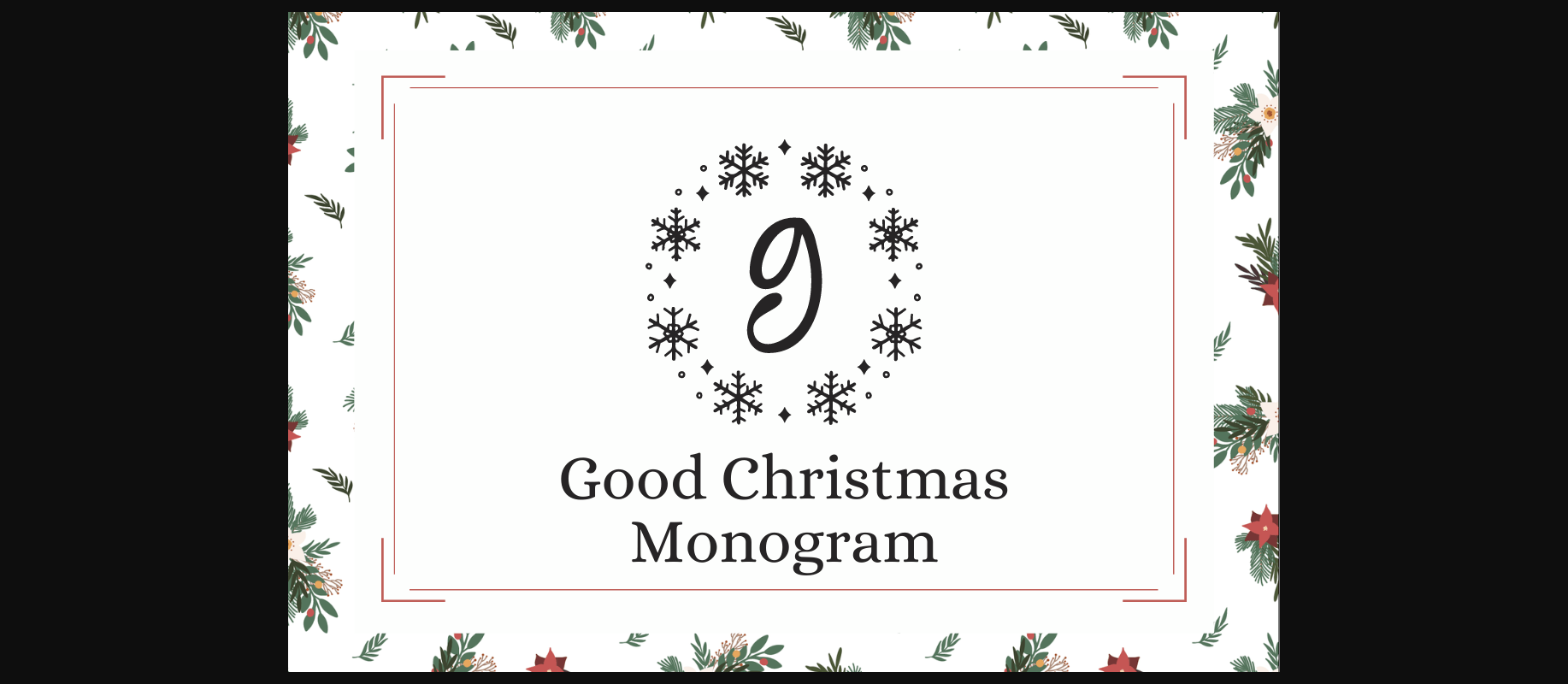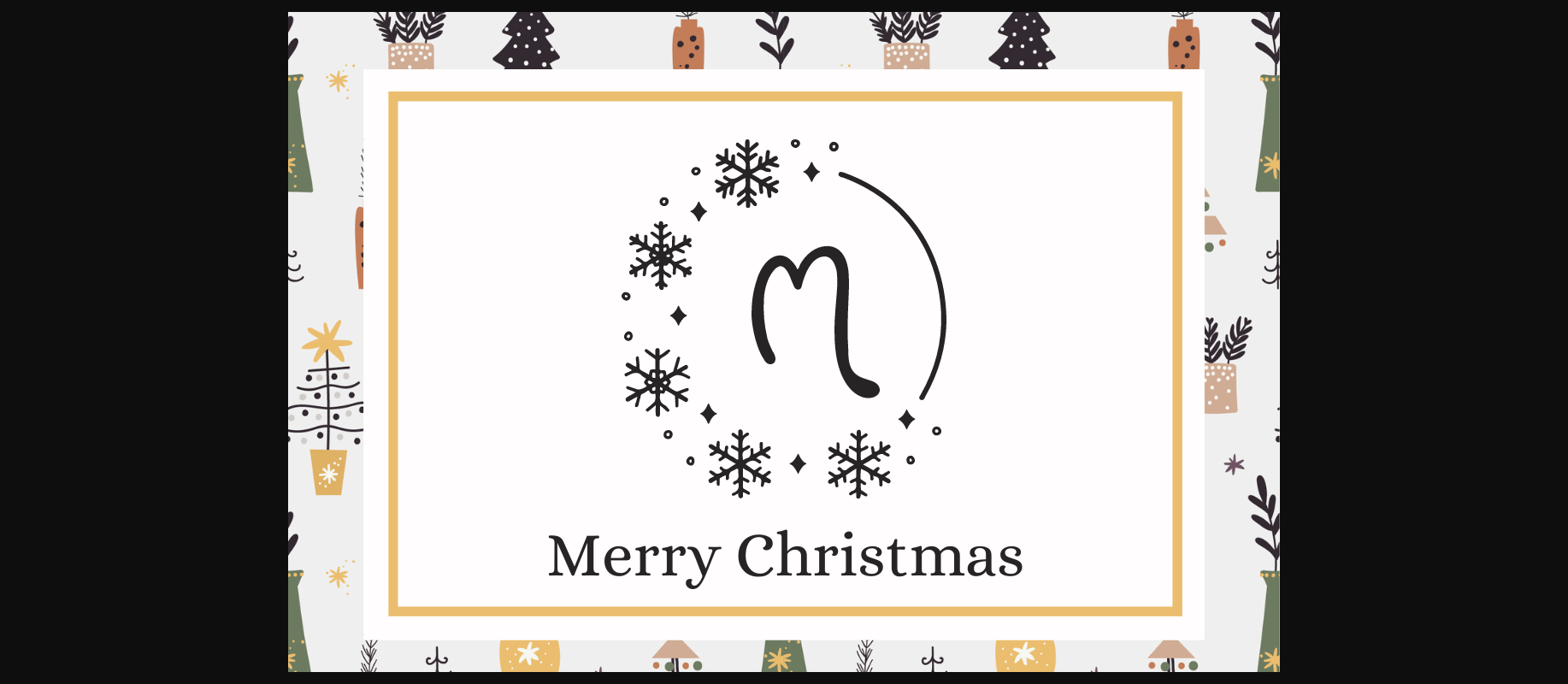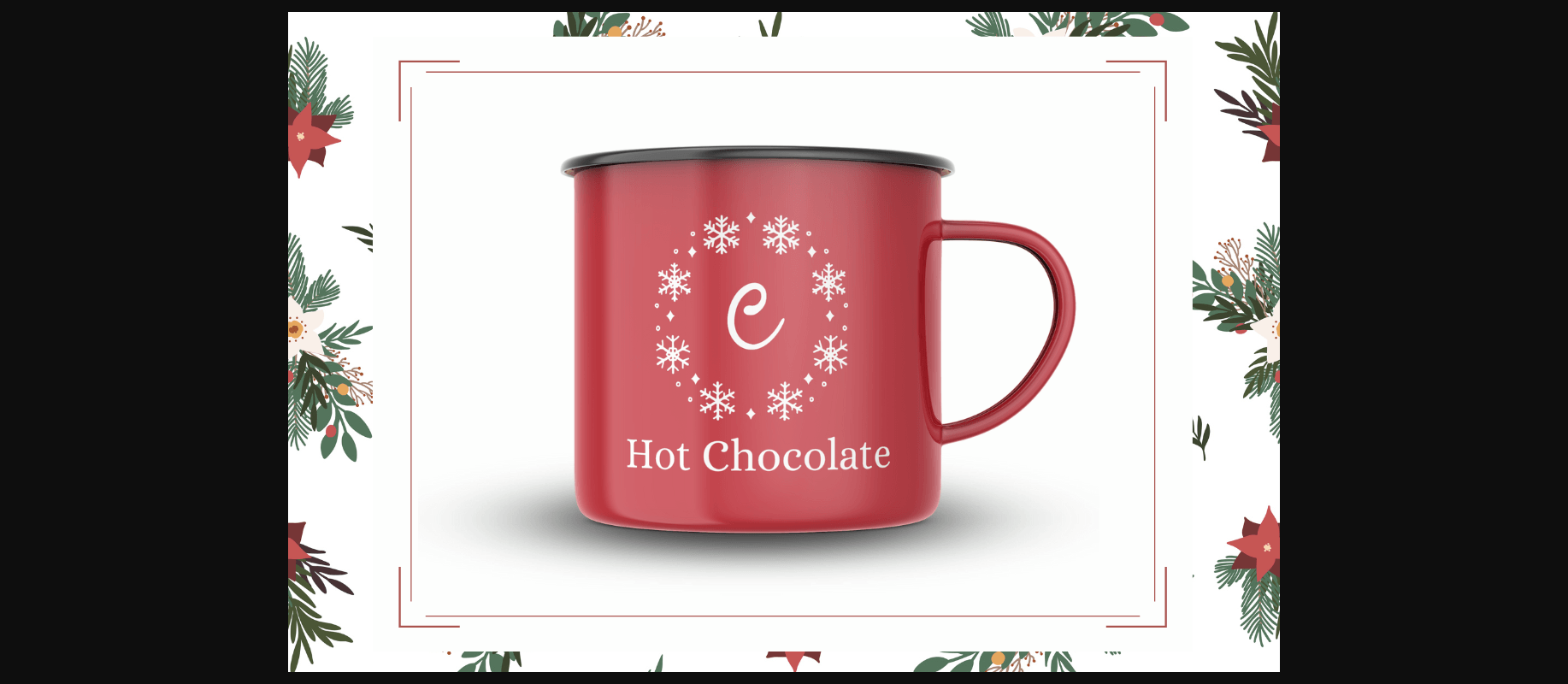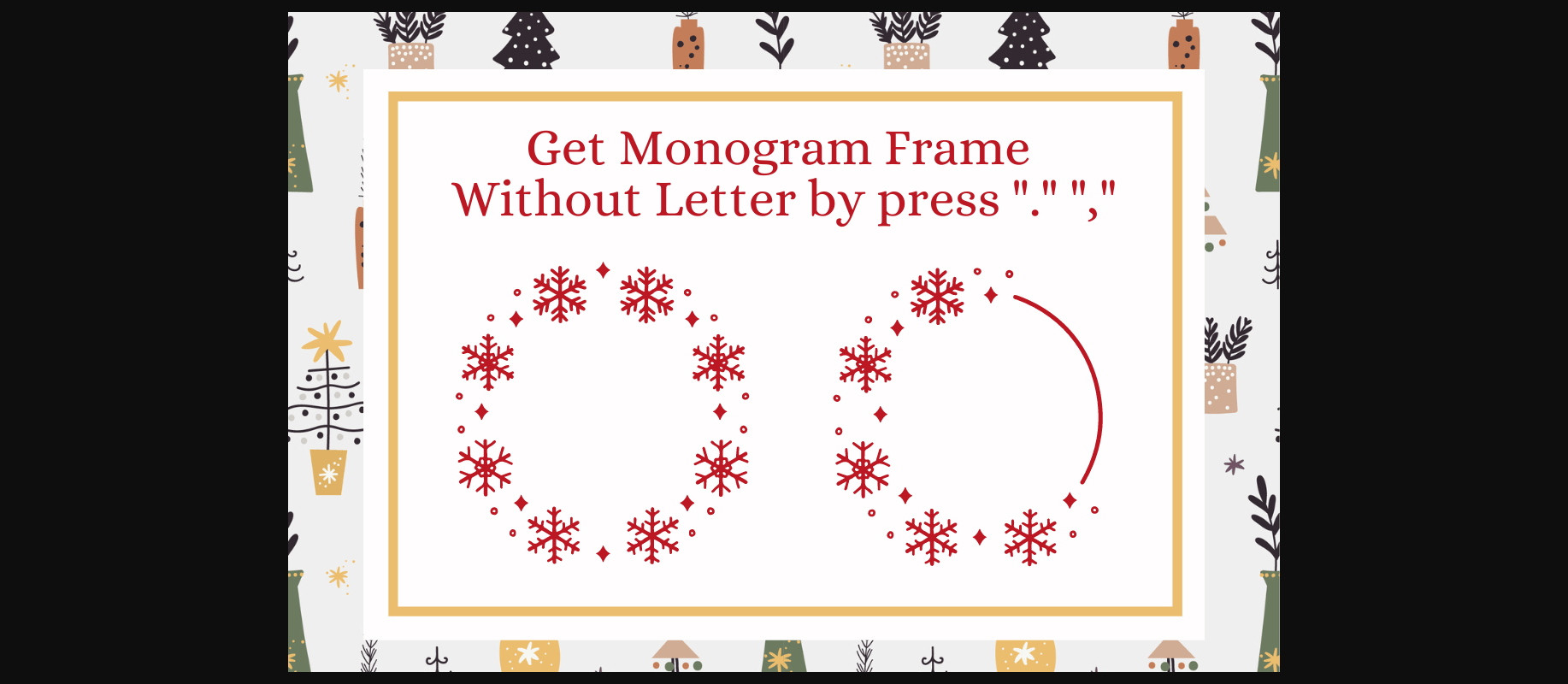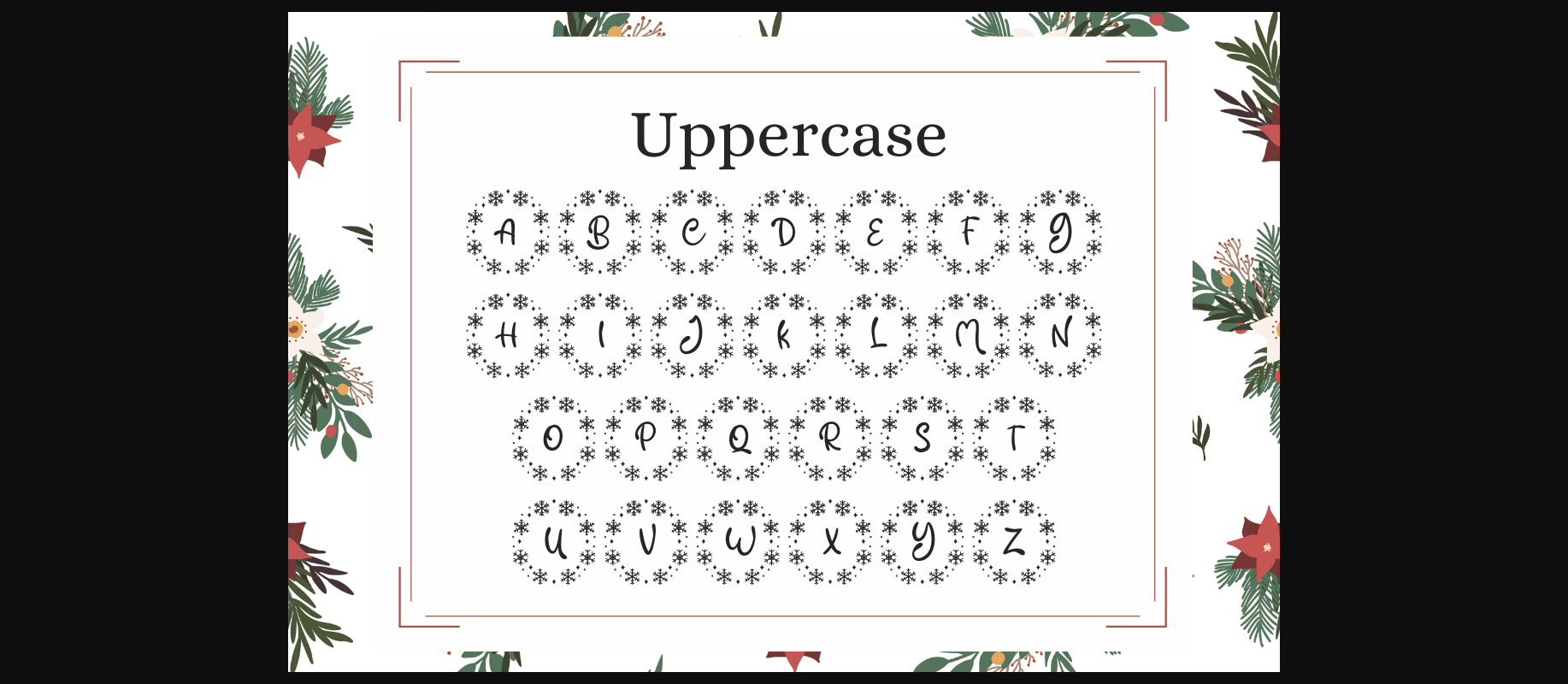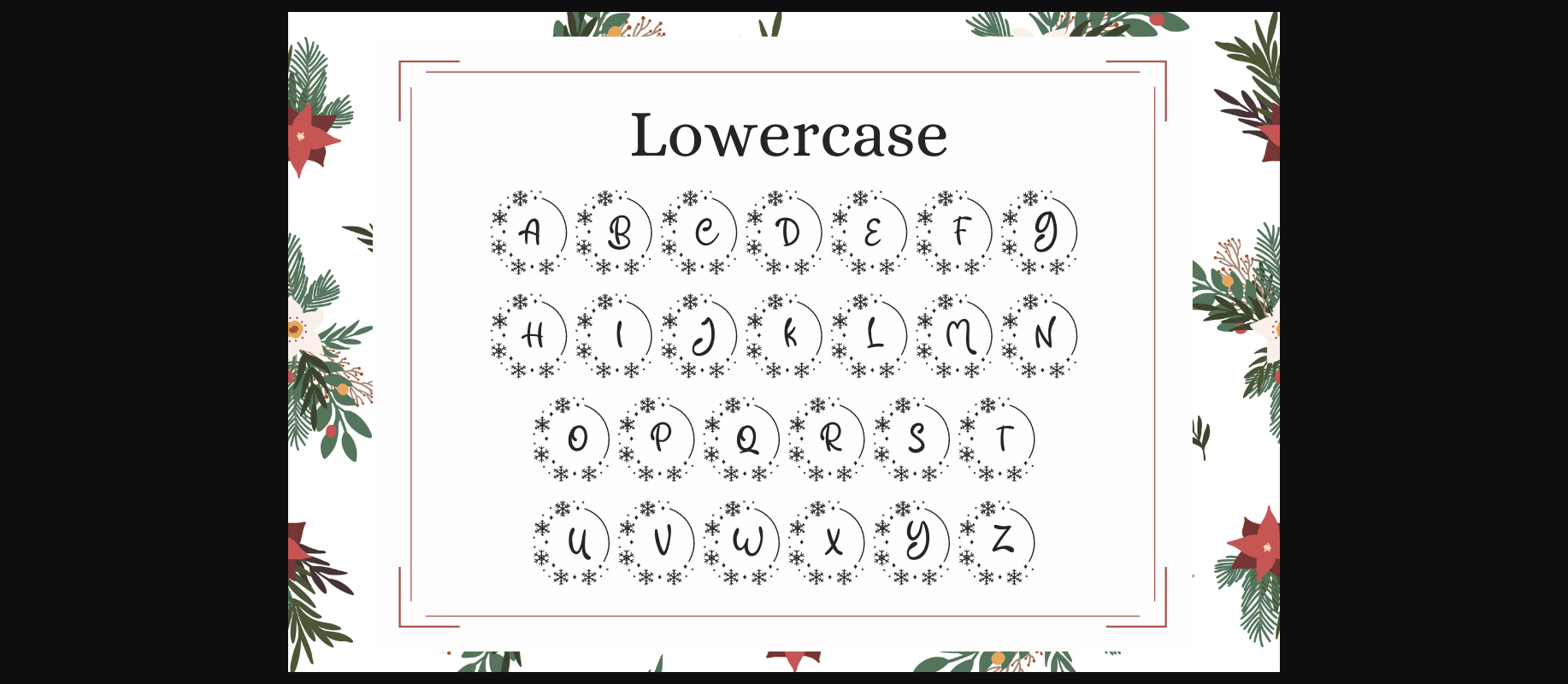
About Good Christmas Monogram Font
Good Christmas Monogram is Christmas and Winter-themed monogram font, perfect for your Christmas special occasions, business designs, logos, branding, social media posts, and wedding cards.
Comes in 2 Christmas styles.
Just simply change between uppercase and lowercase to see the different styles!
Comes in 2 Christmas styles.
Just simply change between uppercase and lowercase to see the different styles!